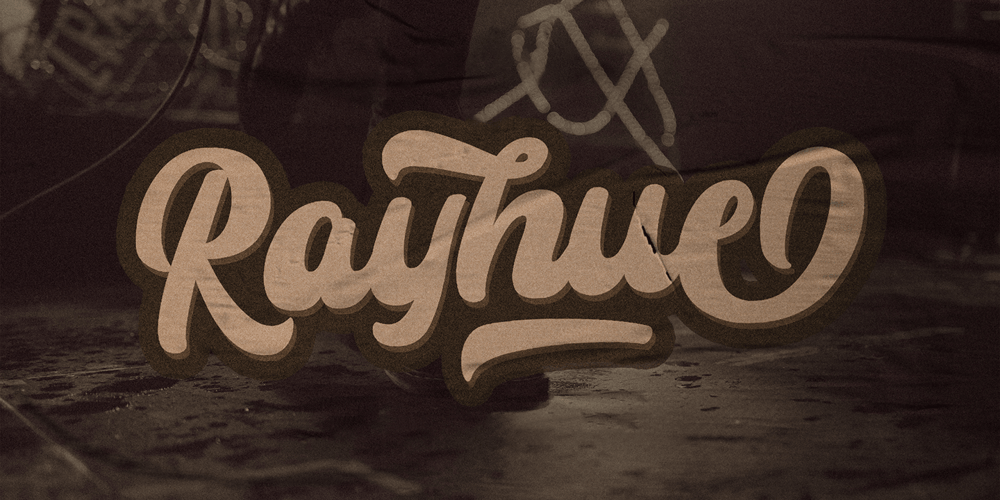
Rayhue
Rayhue font
Rayhue Font Family was designed by Virgiawan Listanto and published by Stringlabs Creative Studio. Rayhue contains 1 styles and family package options. Rayhue feels playfully nostalgic and delivers an incredible vintage aesthetic. Use it to add that special retro touch to any design idea you can think of!